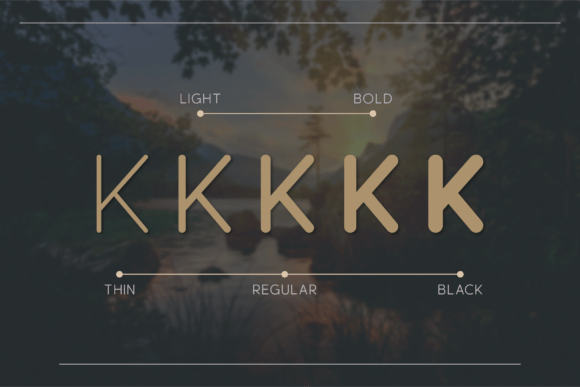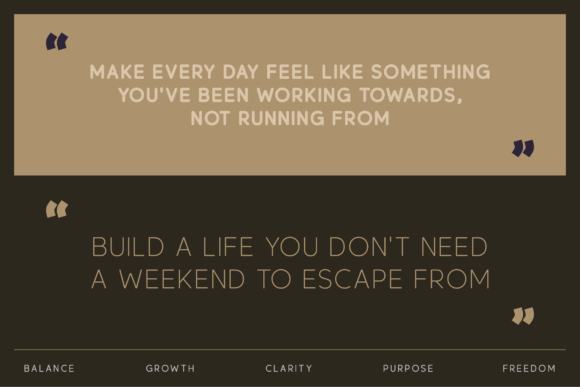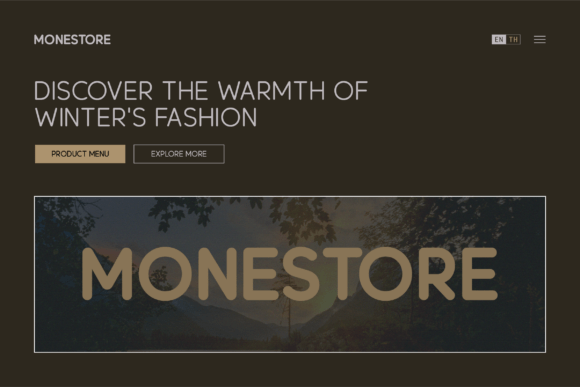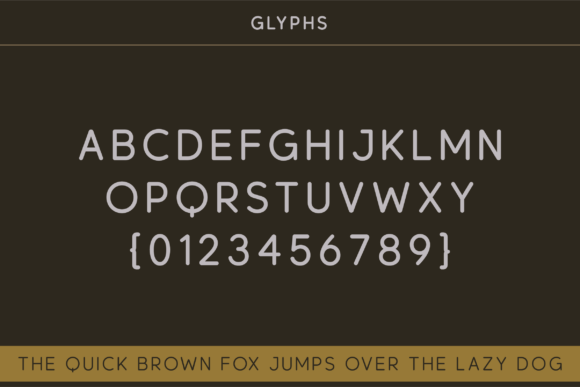
Introduction to Purepeach Rounded Font
Remember the moment when you finally nailed down the perfect design for your branding project? The feeling of excitement and accomplishment is exhilarating, isn’t it? But, have you ever struggled to find the right font that not only adds a touch of personality but also ensures your design looks professional and clean? This is where Purepeach Rounded Font comes in – a modern all-caps sans serif font family designed to bring clarity, warmth, and bold personality to your creative projects.
With its soft-rounded edges and sleek, geometric construction, Purepeach Rounded Font is a valuable resource for designers looking for a high-quality design element that can adapt to various design scenarios, from social media visuals to high-impact headlines. Its five versatile weights – Thin, Light, Regular, Bold, and Black – offer endless possibilities for creative expression.
Key Features of Purepeach Rounded Font
- Purepeach Rounded Font is a versatile design resource suitable for a wide range of creative projects, from digital design to print media.
- Its rounded design elements add a touch of sophistication and elegance to any project, making it a popular choice among designers.
Honest Review: Purepech Rounded Font
I recently came across the Purepeach Rounded Font, and I must say it’s been a great addition to my design resource library. The font is perfect for creating a clean and modern look in my creative projects. One of the standout features of this font is its high quality, making it suitable for both personal and professional use.
What works well for me is the versatility of the font. I can use it for headings, body text, and even as a title font. The rounded edges give it a friendly and approachable feel, which is ideal for designing for a younger audience. Another great feature is that it’s available for free download, making it an excellent choice for designers on a budget.
- High-quality font suitable for various design projects
- Versatile font suitable for headings, body text, and titles
However, I do have to mention a few limitations. The font may not be suitable for formal or corporate designs, as it has a more playful and casual feel. Additionally, the font family is limited, which may not be ideal for designers who require a wide range of font styles.
Overall, I’m quite impressed with the Purepeach Rounded Font. It’s a great design resource that can add a touch of modernity to your creative projects. With its high quality, versatility, and free download option, it’s definitely worth checking out.
Purepeach Rounded Font is a versatile font that can be used in a variety of creative projects, including branding, marketing materials, and digital designs. It’s also a great resource for designers who want to add a playful and high-quality touch to their designs.